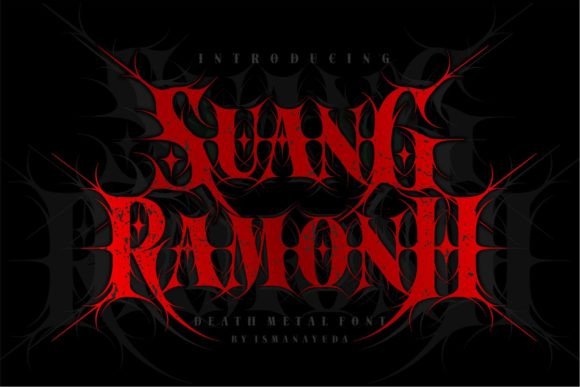
Introducing Suangb Ramonh Font: The Bold and Thick Lettered Blackletter Font
Are you looking for a font that can add a touch of elegance and sophistication to your projects? Look no further than Suangb Ramonh, a bold and thick lettered blackletter font that is sure to make a statement. In this article, we’ll take a closer look at Suangb Ramonh, its features, and how you can use it to elevate your designs.
What is Suangb Ramonh Font?
Suangb Ramonh is a type of blackletter font that is characterized by its bold and thick lettering. Blackletter fonts are a style of script that originated in the Middle Ages and are known for their dramatic and ornate appearance. Suangb Ramonh is a modern take on this classic style, with a unique and distinctive look that sets it apart from other fonts.
Features of Suangb Ramonh Font
So, what makes Suangb Ramonh font so special? Here are just a few of its key features:
- Bold and Thick Lettering: Suangb Ramonh is a bold and thick lettered font, making it perfect for headlines, titles, and other display text.
- Blackletter Style: Suangb Ramonh is a true blackletter font, with a dramatic and ornate appearance that is sure to add a touch of elegance to your designs.
- Unique and Distinctive: Suangb Ramonh has a unique and distinctive look that sets it apart from other fonts. Its bold and thick lettering makes it perfect for adding a touch of drama and flair to your designs.
- Easy to Read: Despite its bold and ornate appearance, Suangb Ramonh is surprisingly easy to read, making it perfect for use in a variety of contexts.
How to Use Suangb Ramonh Font
Suangb Ramonh is a versatile font that can be used in a variety of contexts. Here are just a few ideas for how you can use it:
- Headlines and Titles: Suangb Ramonh is perfect for use in headlines and titles, where its bold and thick lettering can really make an impact.
- Logos and Branding: Suangb Ramonh’s unique and distinctive look makes it perfect for use in logos and branding materials.
- Posters and Flyers: Suangb Ramonh is a great choice for posters and flyers, where its bold and eye-catching appearance can really help to grab attention.
- Digital Media: Suangb Ramonh can also be used in digital media, such as video games, apps, and websites.
Benefits of Using Suangb Ramonh Font
So, why should you choose Suangb Ramonh for your next project? Here are just a few benefits of using this amazing font:
- Adds Elegance and Sophistication: Suangb Ramonh’s bold and ornate appearance adds a touch of elegance and sophistication to any design.
- Grabs Attention: Suangb Ramonh’s bold and eye-catching appearance makes it perfect for use in headlines and titles, where it can really help to grab attention.
- Versatile: Suangb Ramonh is a versatile font that can be used in a variety of contexts, from logos and branding to posters and digital media.
- Easy to Read: Despite its bold and ornate appearance, Suangb Ramonh is surprisingly easy to read, making it perfect for use in a variety of contexts.
Tips for Using Suangb Ramonh Font
Here are a few tips for getting the most out of Suangb Ramonh:
- Use it Sparingly: Suangb Ramonh is a bold and eye-catching font, so it’s best to use it sparingly to avoid overwhelming your design.
- Pair it with Other Fonts: Suangb Ramonh can be paired with other fonts to create a unique and interesting look.
- Experiment with Different Sizes: Suangb Ramonh looks great in a variety of sizes, so don’t be afraid to experiment to find the perfect size for your design.
In conclusion, Suangb Ramonh is a bold and thick lettered blackletter font that is sure to add a touch of elegance and sophistication to any design. Its unique and distinctive look makes it perfect for use in a variety of contexts, from logos and branding to posters and digital media. With its bold and eye-catching appearance, Suangb Ramonh is sure to grab attention and make a lasting impression.
- What is Suangb Ramonh font?: Suangb Ramonh is a bold and thick lettered blackletter font.
- What is Suangb Ramonh used for?: Suangb Ramonh can be used for a variety of purposes, including headlines, titles, logos, branding, posters, flyers, and digital media.
- Is Suangb Ramonh easy to read?: Yes, despite its bold and ornate appearance, Suangb Ramonh is surprisingly easy to read.